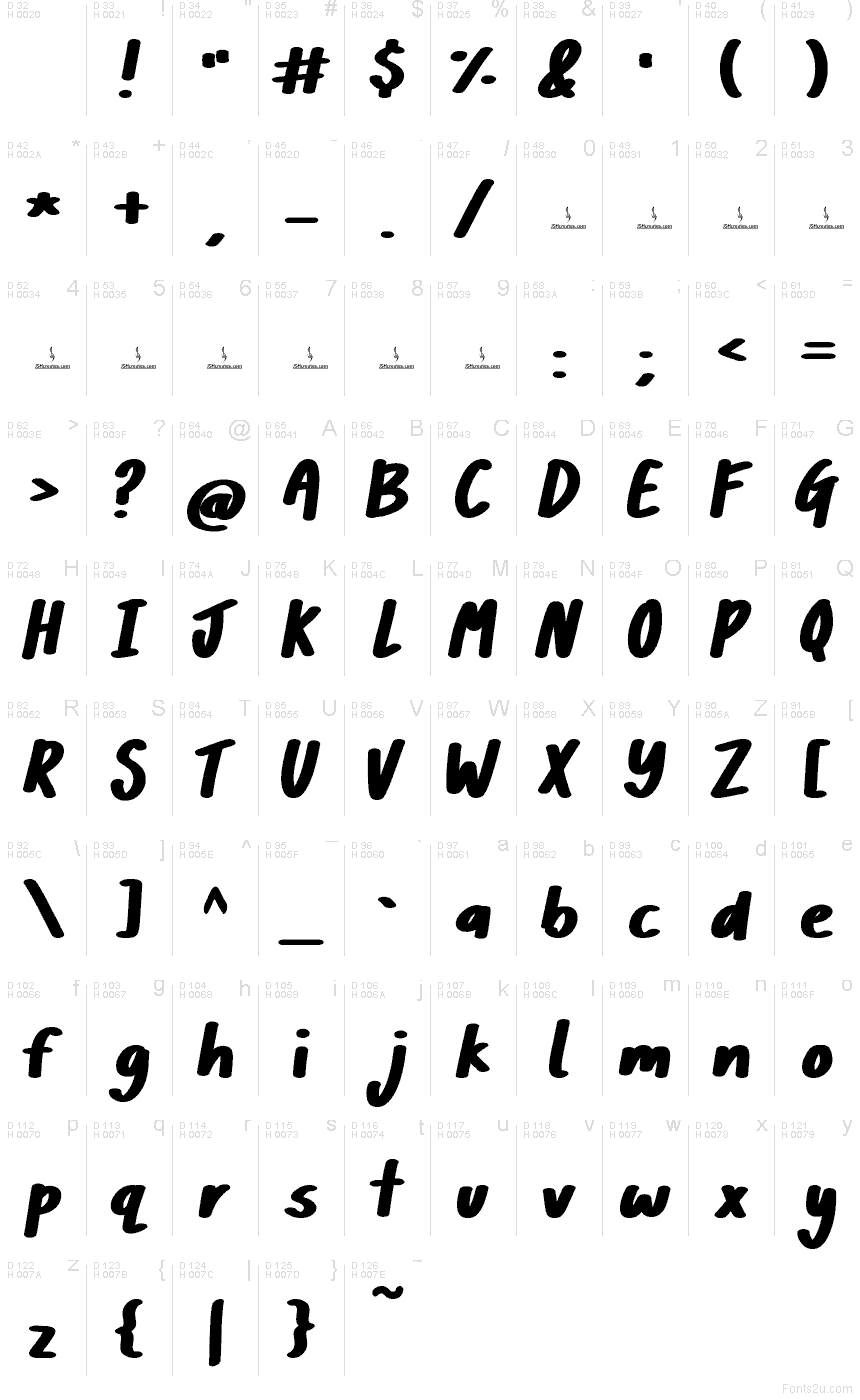
Glitzy Girl
Glitzy Girl font by JSH creates is a free handwritten typeface with a bold, inky brush feel and a playful, confident swing. The letters are rounded and chunky, with smooth curves that feel like quick, stylish marker strokes—casual, but still polished enough to hold a logo or headline on its own. There’s a fun, flirty energy running through the script that makes every word feel like a signature.
Using Glitzy Girl, you’ll get a lively, attention-grabbing look for beauty branding, lifestyle blogs, YouTube channel art, Instagram quotes, party invitations, stickers, and sassy merch. This free font really shines when set large with generous spacing; pair it with a clean geometric sans for body text to keep layouts fresh and easy to read.